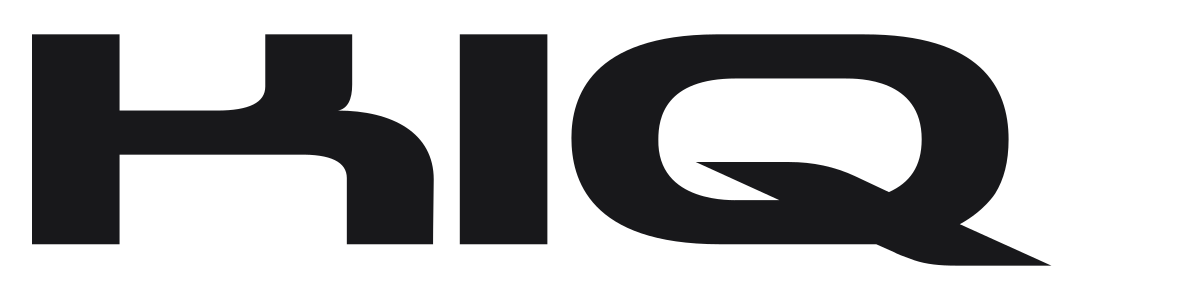
KIQ
KIQ is a wide, bold geometric sans with heavily rounded terminals and a sleek, streamlined character. The low-profile proportions and large open counters give it a distinctly futuristic quality that sits somewhere between automotive design and gaming culture. It reads at a glance and hits hard at large sizes.